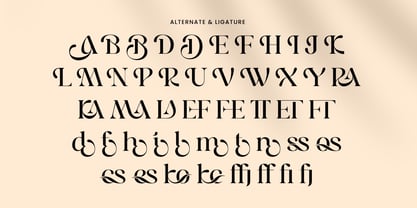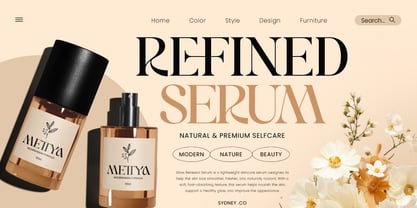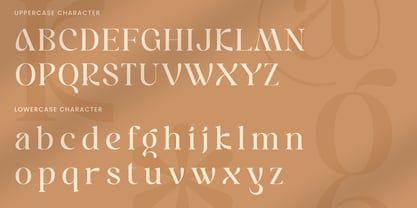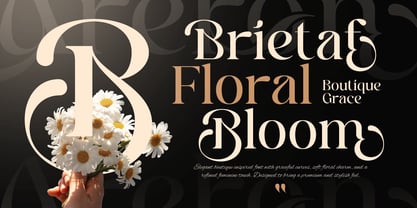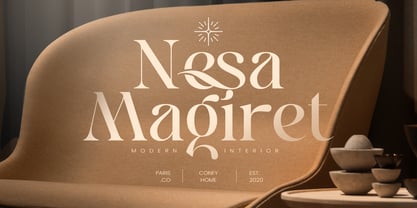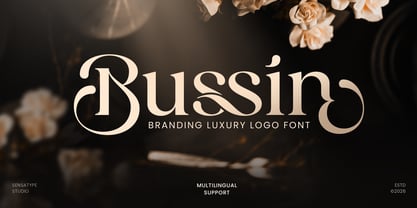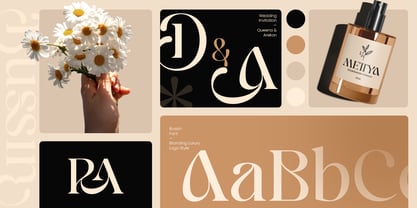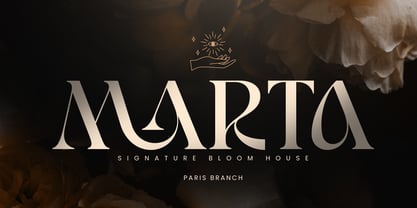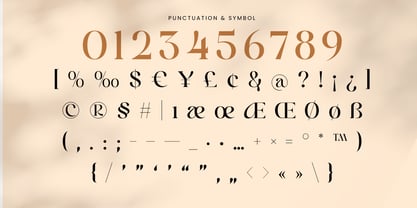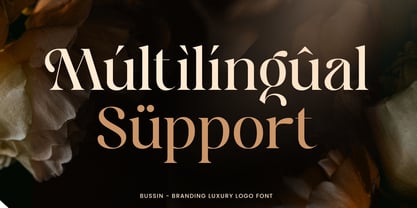
Bussin
The Bussin Font Family was designed by Zamroni Hamzah and published by Sensatype Studio. Bussin contains 1 styles. More about this family
Bussin is a branding luxury logo font crafted to bring elegance, confidence, and premium character to modern visual identities. With refined letterforms, stylish proportions, and a sophisticated display presence, this typeface is perfect for luxury logos, fashion branding, editorial layouts, boutique packaging, and high-end design projects.
Created for designers who want typography with both beauty and authority, Bussin blends modern luxury aesthetics with timeless visual appeal. Its polished shapes help every logo, headline, invitation, and packaging design feel exclusive, memorable, and professionally crafted.
Whether used for beauty brands, fashion labels, wedding stationery, lifestyle products, or premium marketing visuals, Bussin delivers a refined typographic presence that works beautifully across both print and digital media.
Bussin – Branding Luxury Logo Font Features
• Elegant luxury display style with strong branding appeal
• Perfect for logos, editorials, invitations, and premium packaging
• Stylish letterforms with refined proportions and sophisticated character
• Ideal for fashion, beauty, wedding, lifestyle, and boutique industries
• Uppercase, lowercase, numerals, and punctuation included
• OpenType features for enhanced typographic styling
Multilingual support for Afrikaans, Albanian, Asu, Basque, Bemba, Bena, Breton, Chiga, Cornish, Dutch, English, Estonian, Filipino, Finnish, Friulian, Galician, German, Gusii, Indonesian, Irish, Italian, Kabuverdianu, Kalenjin, Kinyarwanda, Luo, Luxembourgish, Luyia, Machame, Makhuwa-Meetto, Makonde, Malagasy, Manx, Morisyen, North Ndebele, Nyankole, Oromo, Portuguese, Quechua, Romansh, Rombo, Rundi, Rwa, Samburu, Sango, Sangu, Scottish Gaelic, Sena, Shambala, Shona, Soga, Somali, Spanish, Swahili, Swedish, Swiss, and more.
Create a refined luxury identity with Bussin – the perfect logo font for elegant branding, premium packaging, and stylish editorial design. ✨